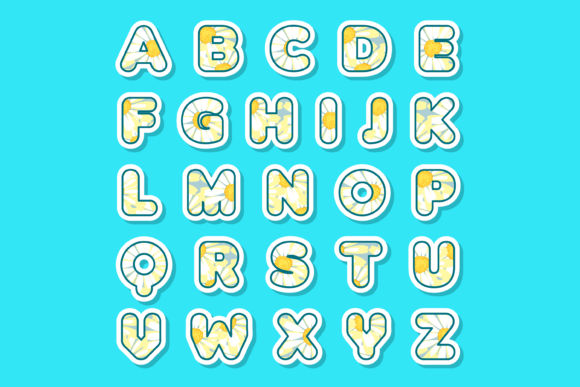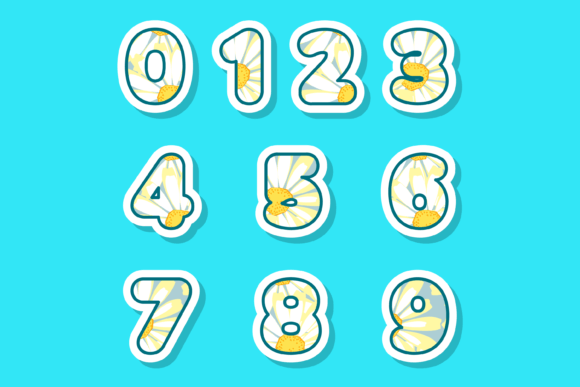
The Daisy Font: A Lovely Addition to Your Design Arsenal
I’ll never forget the time I was working on a custom wedding invitation project, and my client asked for a font that was “floral, yet elegant.” I scoured the internet, trying to find the perfect match, but nothing seemed quite right. That was until I stumbled upon the Daisy font. With its charming, hand-drawn aesthetic and vibrant color options, it was love at first sight! In this article, I’ll share my experience with the Daisy font, its features, and how to make the most of it in your designs.
An Honest Review of Daisy Font
- ✨ Vibrant colors: The Daisy font is a color font, which means it comes with a range of beautiful, pre-designed colors that add an extra layer of depth to your designs.
- ✅ Elegant and playful: The font’s style is reminiscent of traditional Marguerite fonts, but with a modern twist that makes it perfect for a wide range of projects.
- 🌟 Highly versatile: Whether you’re designing custom invitations, crafting DIY projects, or creating social media graphics, the Daisy font is an excellent choice.
While the Daisy font is an amazing addition to any designer’s toolkit, there are a few things to keep in mind:
- 🤔 Steep learning curve: If you’re new to working with color fonts or OpenType features, you may need to invest some time in learning how to get the most out of the Daisy font.
The Story Behind Daisy Font
The Daisy font was inspired by the traditional French Marguerite fonts, which were popularized during the Art Nouveau era. The designer aimed to create a modern, digital version of this classic font, with the added bonus of vibrant colors and OpenType features. The result is a font that’s both elegant and playful, perfect for a wide range of creative projects.